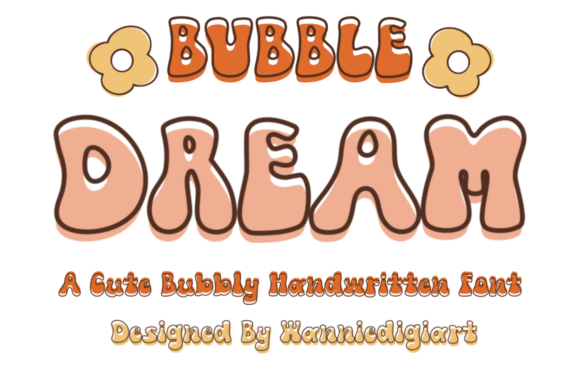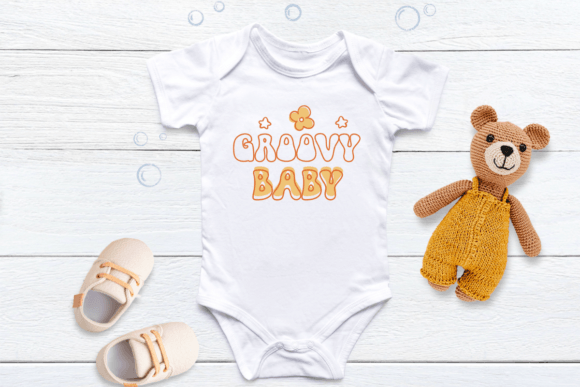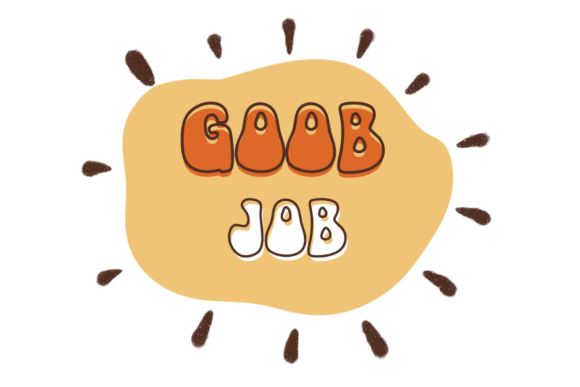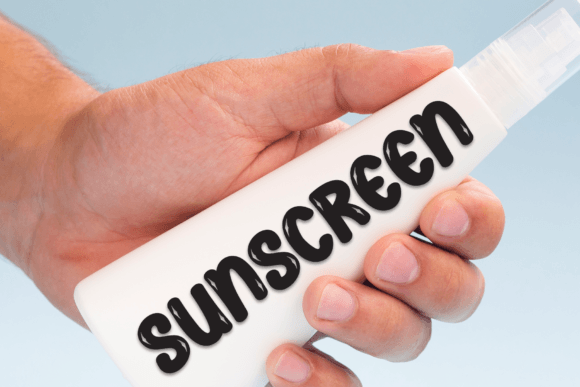
Bubble Dream Font: A Playful Display Font for Cute DIY Projects
About the Bubble Dream Font
Crafted with precision, the Bubble Dream Font is ready to bring your ideas to life. Bubble Dream
is a playful font that looks like it’s made of soft, round bubbles. Its letters are big, rounded, and friendly, making it perfect for fun projects like kids’ books, party invitations, or anything that needs a cheerful touch. The bubbly style adds a sense of joy and lightness to your text!
Bubble Dream excels in headlines, short playful taglines, and children’s book titles where its whimsical nature shines. It’s also well-suited for branding projects targeting a young, fun-loving audience, such as ice cream shops or toy stores. Avoid using it for body text or lengthy paragraphs; its rounded forms can hinder readability at smaller sizes.
The font’s inherent friendliness is best complemented by pairing it with a clean sans-serif like Open Sans for body copy or a more geometric sans-serif like Futura for a modern contrast. For a more playful combination, consider pairing it with a hand-drawn script font.
Bubble Dream projects a light-hearted and approachable personality, making it ideal for brands focusing on joy and fun. Its informal style makes it less suitable for serious or corporate applications.
Bubble Dream Font Usage Examples
Bubble Dream Font Example